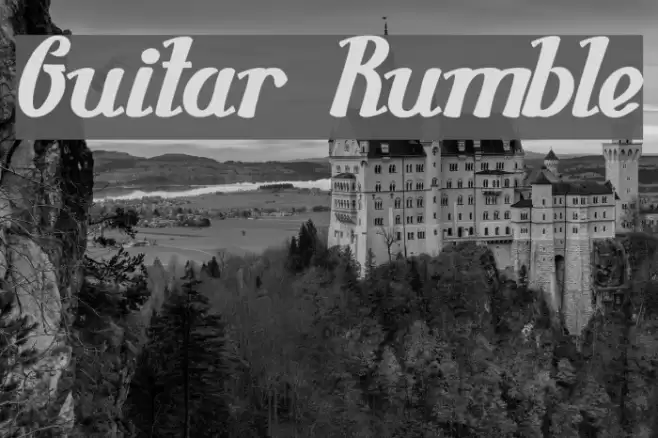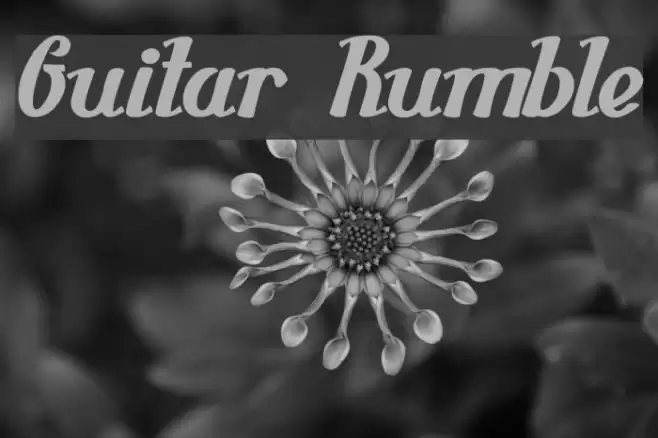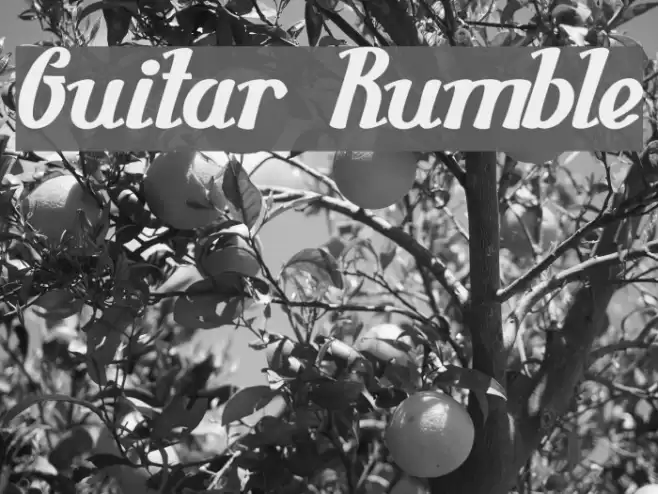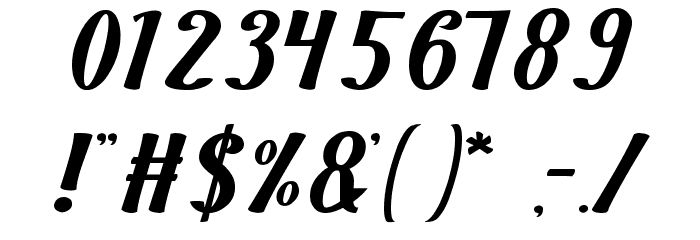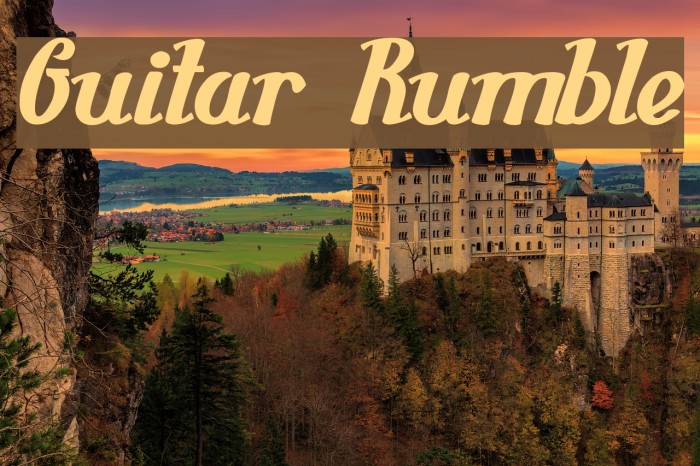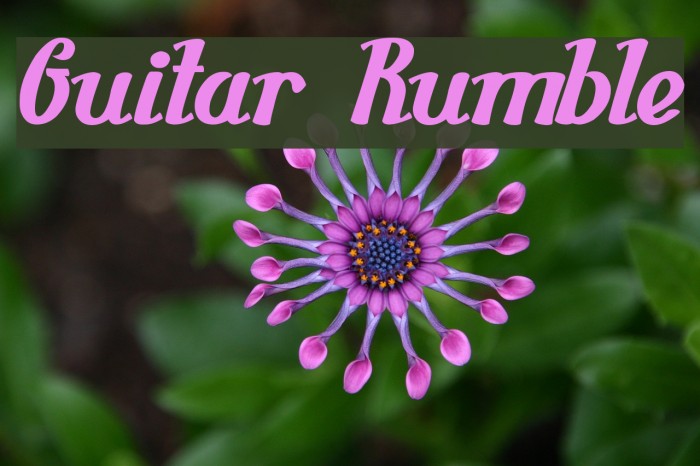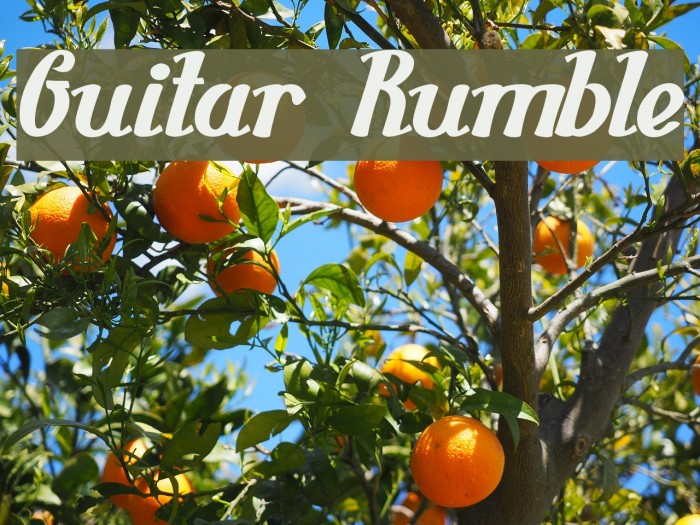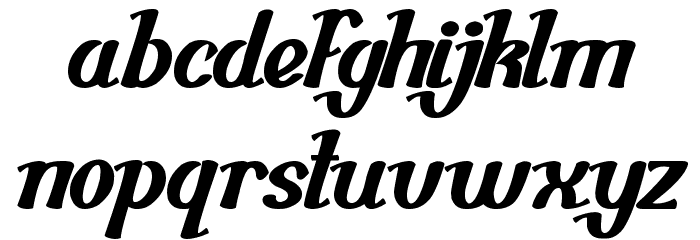
Guitar Rumble Font
Guitar Rumble Description
This font features a bold and dynamic script style with a strong presence. The letters are slightly slanted, giving a sense of movement and energy. The strokes are thick and consistent, with smooth curves and sharp edges that create a striking visual impact. The uppercase letters are tall and commanding, while the lowercase letters maintain a cohesive flow. The numerals are bold and easily readable, complementing the overall style. Special characters are distinct and well-integrated, enhancing the font's versatility.
A bold, dynamic script font with a strong presence and smooth curves from Uncategorized fonts.
- Proposed Projects: Ideal for branding, posters, music album covers, and any project requiring a bold, energetic look.